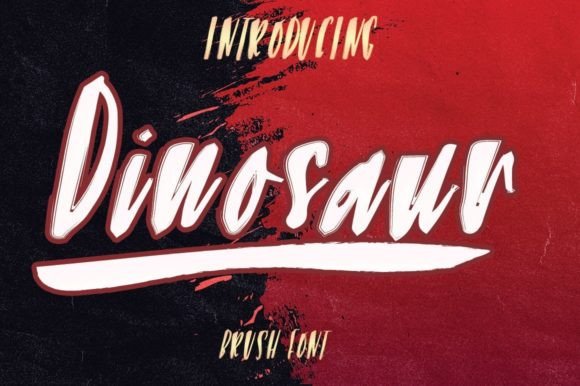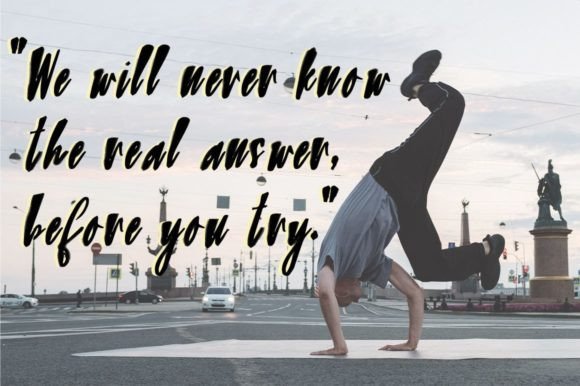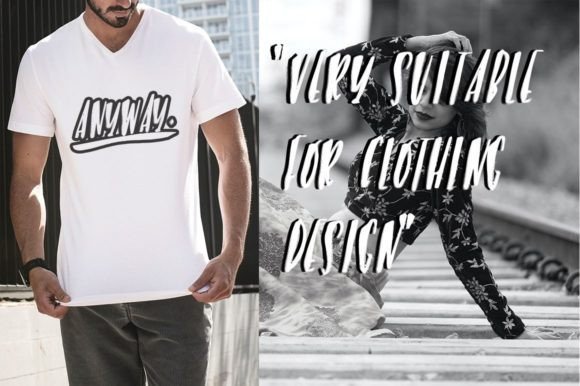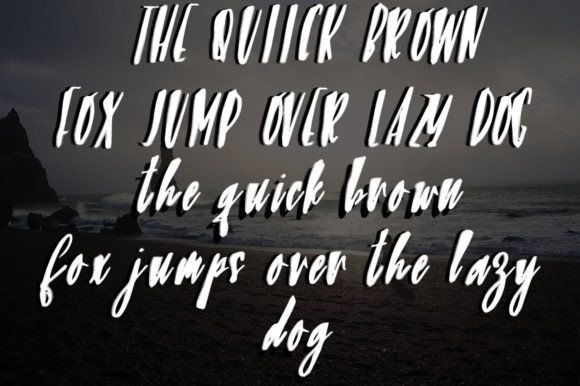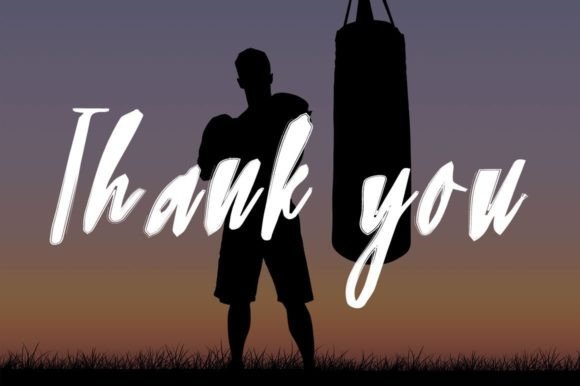
Dinosaur Font
About Dinosaur Font
Dinosaur is a bold and assertive handwritten font that commands attention and adds a strong visual impact to your designs. Its confident strokes and powerful presence make it a valuable asset to any designer’s font library. Regardless of the topic or context, Dinosaur has the ability to enhance any creation, infusing it with a sense of boldness and trendiness.
One of the key strengths of Dinosaur lies in its versatility. Whether you’re working on branding, posters, headlines, social media graphics, product packaging, or any other creative project, this font stands out and leaves a lasting impression. Its bold and assertive nature ensures that your message is delivered with confidence and authority, capturing the viewer’s attention and making a strong statement.
Dinosaur’s trendiness adds a contemporary edge to your designs, keeping them relevant and visually appealing. Its bold characters make it ideal for projects where you want to make a bold statement or create a sense of excitement. The font’s assertive style allows it to stand on its own, making it a perfect choice for minimalist designs or compositions where the typography takes center stage.
Incorporating Dinosaur into your designs communicates a sense of confidence and modernity. Its boldness and trendiness make it a favorite among designers who want to make a bold impact and stay ahead of design trends. By choosing Dinosaur, you’re selecting a font that not only elevates your creations but also adds a touch of contemporary flair.
So, whether you’re working on branding for a cutting-edge startup, designing eye-catching event posters, creating impactful social media visuals, or any other creative endeavor, let Dinosaur be your go-to font. Its bold and assertive handwritten style enhances your designs, making them stand out with confidence and trendiness. Embrace the power of Dinosaur and watch your creations come to life with boldness and contemporary charm.